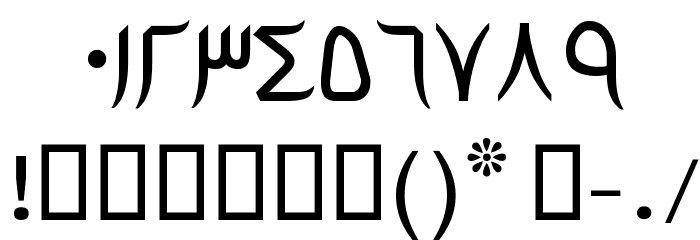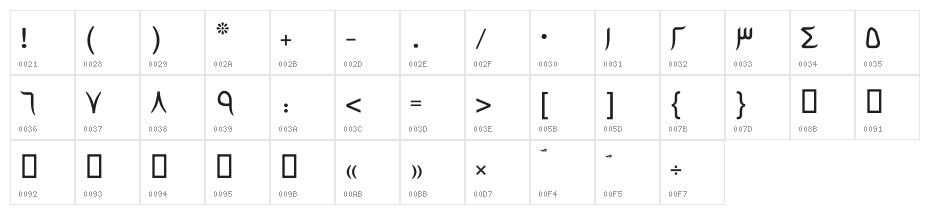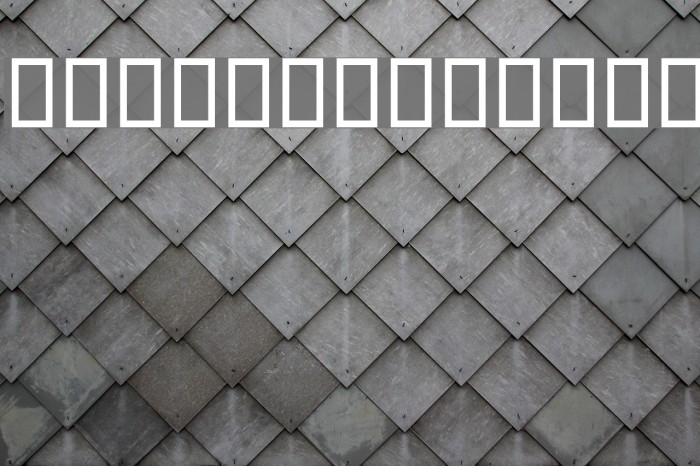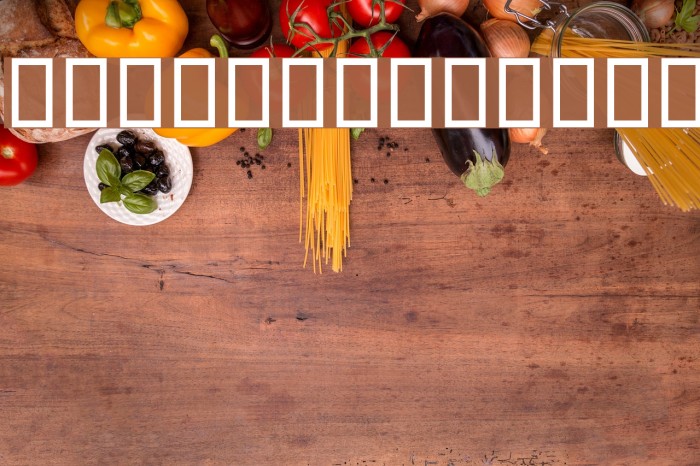
Esteqhlaal Font
Esteqhlaal Description
This font features a unique blend of traditional and modern elements, characterized by its distinct geometric shapes and sharp angles. The characters exhibit a bold presence with a slightly condensed form, making it ideal for impactful designs. The numbers and special characters maintain the same stylistic approach, ensuring consistency across all elements. The font's clean lines and structured appearance lend it a versatile quality, suitable for various design applications.
| Proposed Projects | Ideal for branding, posters, and headlines where a strong visual impact is desired. |